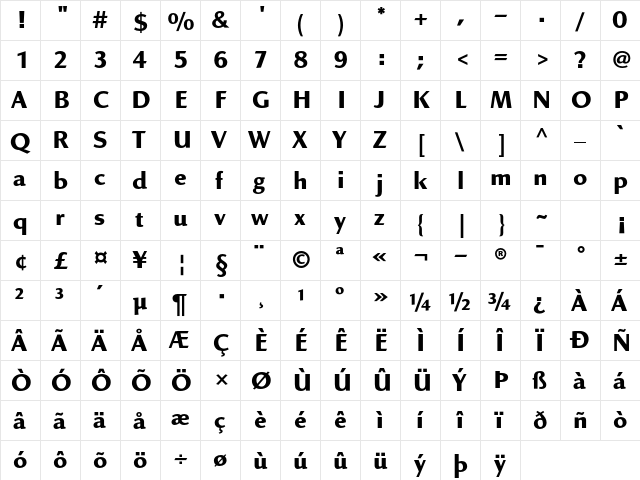
Linex Sans Std Bold
Design Context for Linex Sans Std Typeface
Linex Sans Std takes a measured approach to typography — its balanced proportions and neutral character make it a reliable workhorse for both digital and print work. The heavy weight commands attention and anchors typographic hierarchies.